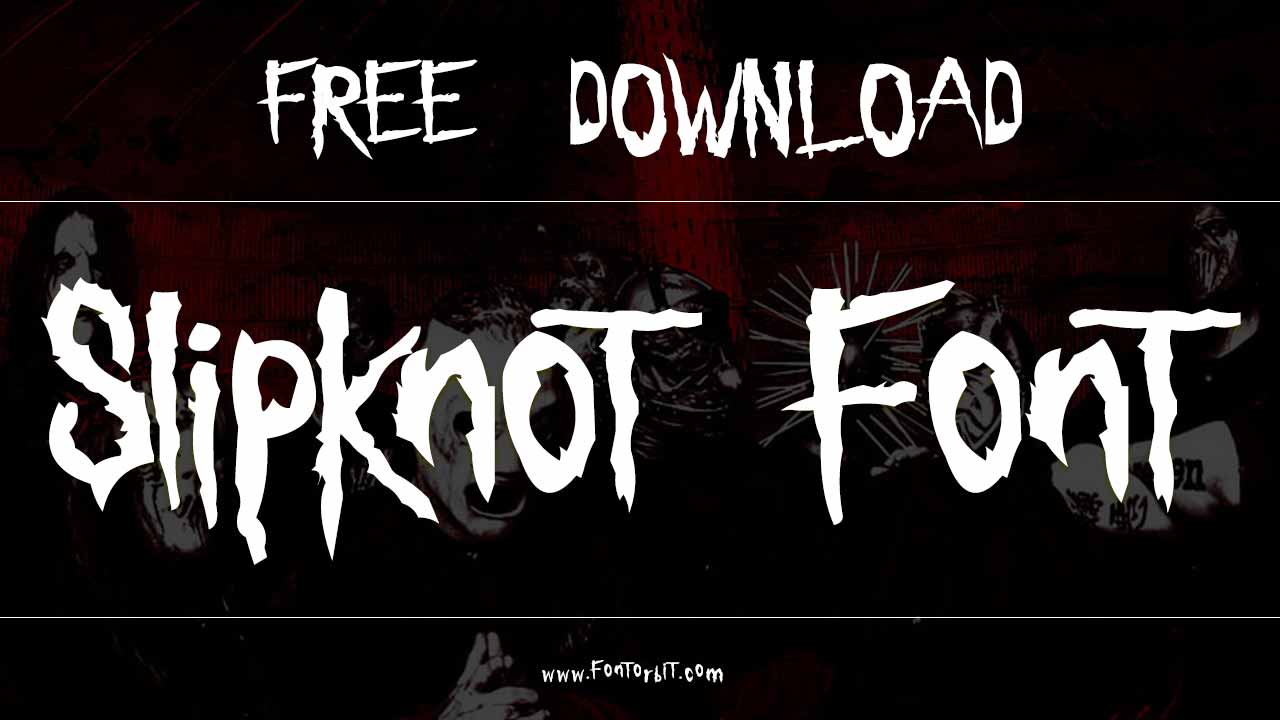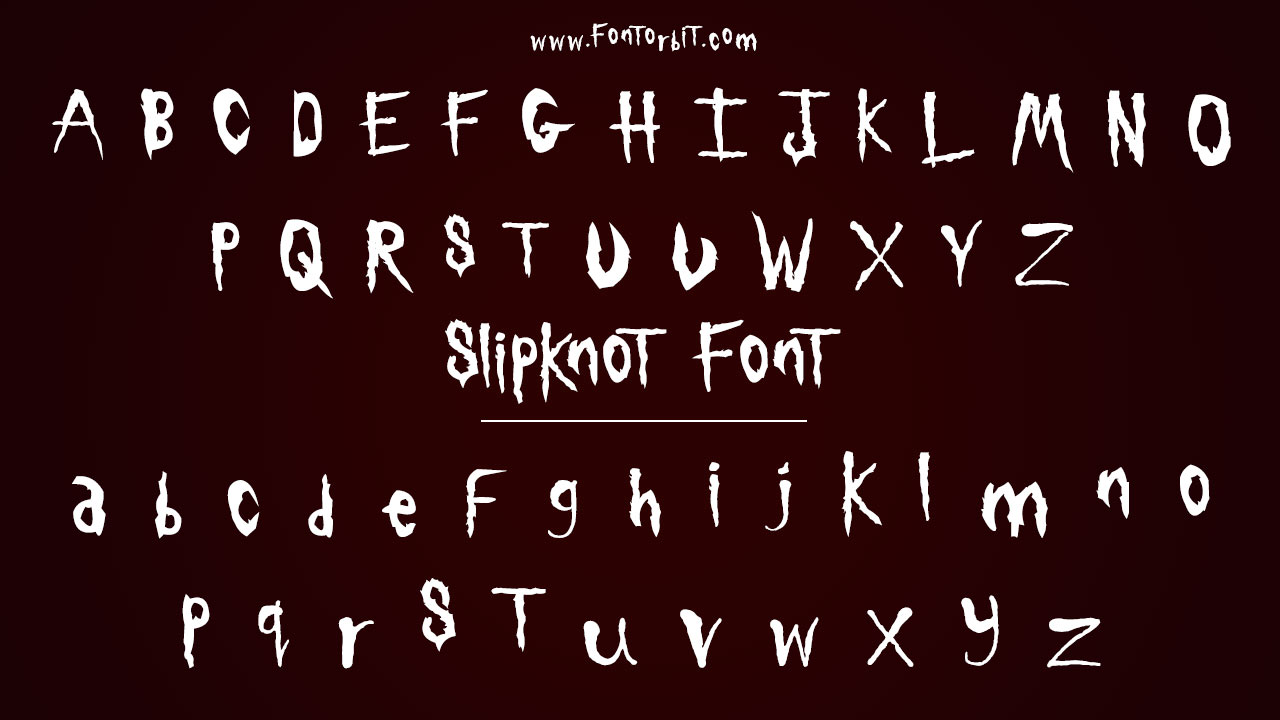
Slipknot, the legendary heavy metal band from Des Moines, is known for its aggressive style, intense performances, and unique branding. One of the key visual elements associated with the band is their logo font, which has been replicated as Sickness Font. Designed by Unknown, this font captures the raw energy of Slipknot and is widely used in posters, graphics, and merchandise.
What is the Slipknot Font?
The Slipknot Font, commonly known as Sickness Font, is a jagged, grunge-style typeface that mimics the band’s iconic lettering. While not an official font, it resembles the original and is often used for music-related projects.
Slipknot Font Family
- Sickness Regular
- Sickness Bold
- Sickness Italic
- Sickness Distressed
Where You Can Use the Slipknot Font
| Style | Grunge, Heavy Metal, Scratch |
| Font Family | Regular, Bold, Italic, Distressed |
Is the Slipknot Font a brush or script style?
It is a mix of brush, script, and distressed grunge.
Are there different versions of the Slipknot Font?
Yes, the Slipknot Font Family includes Regular, Bold, Italic, and Distressed styles.
Is there an official Slipknot Font?
No, but Sickness Font is a close replica of their logo typography.